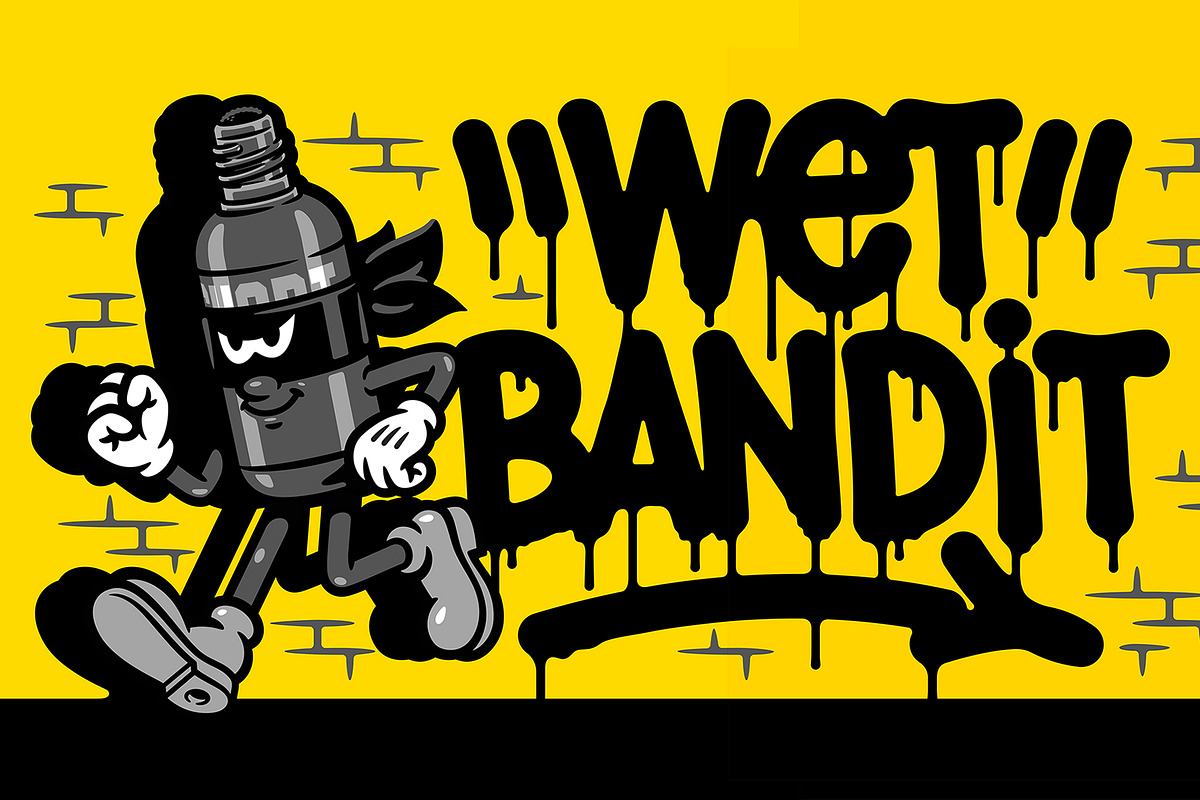
Wet Bandit Font Free Download is a fun, bold display typeface with a unique, playful design. It combines a rugged and whimsical style that gives it a creative and expressive look. This font is perfect for designs that need a bit of character and energy, such as posters, logos, social media graphics, t-shirt designs, and more.
With its distinct personality, Wet Bandit is ideal for projects that aim to stand out and make a statement. Whether you're designing for a fun event, creating a brand identity, or working on a quirky promotional piece, this font will add a creative flair to your typography.
Add personality and charm to your designs with Wet Bandit Font Free Download, and bring bold, fun typography to your creative projects. Perfect for designers seeking a playful, eye-catching typeface.